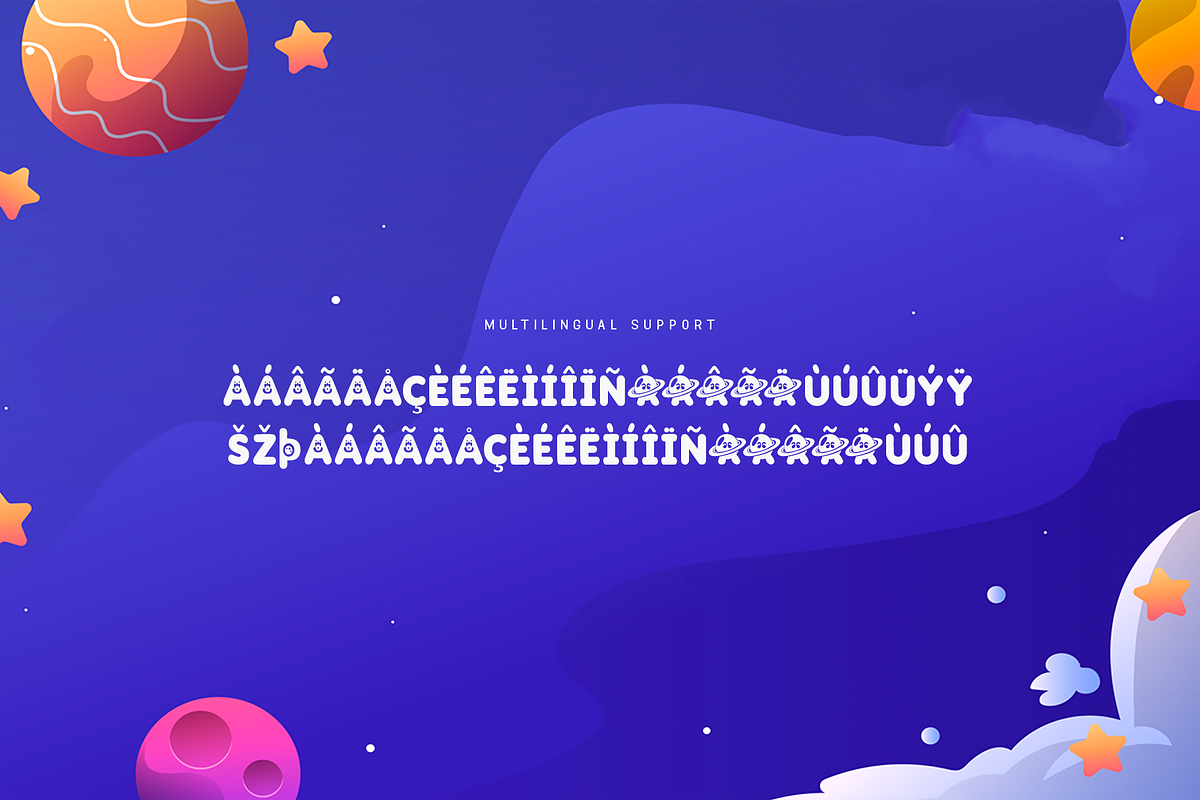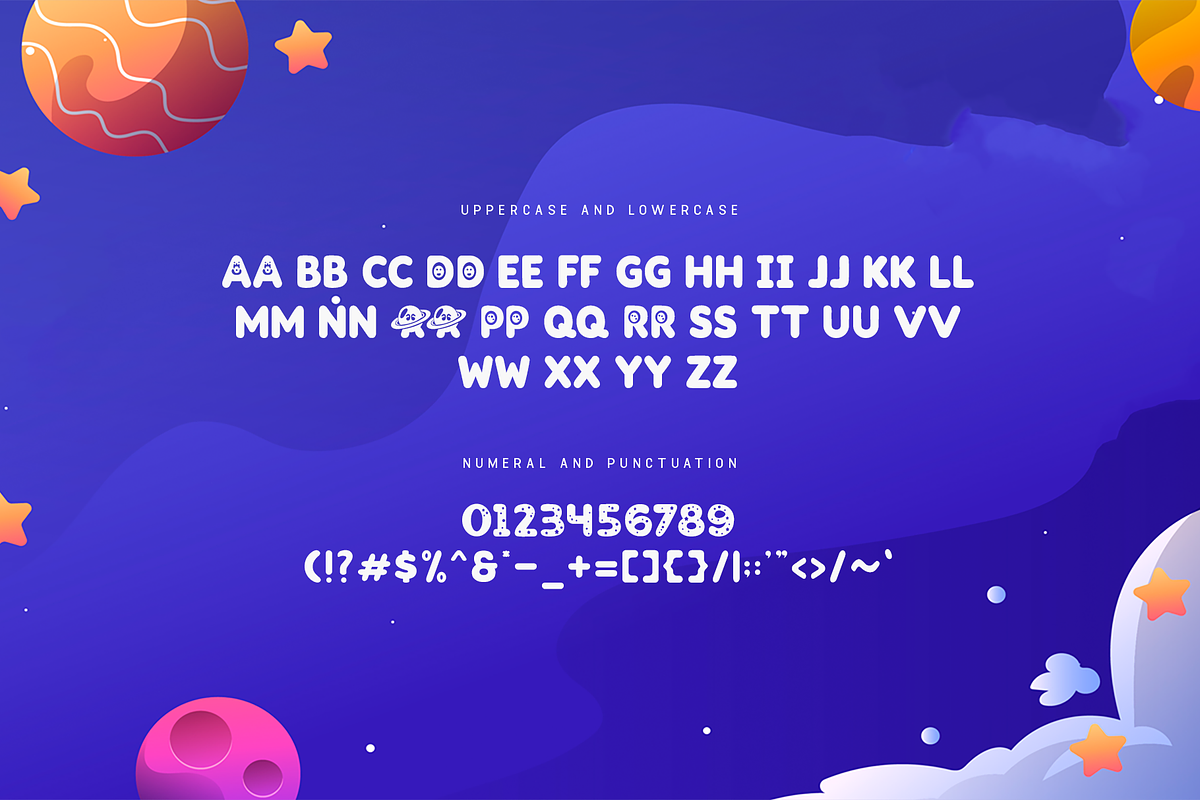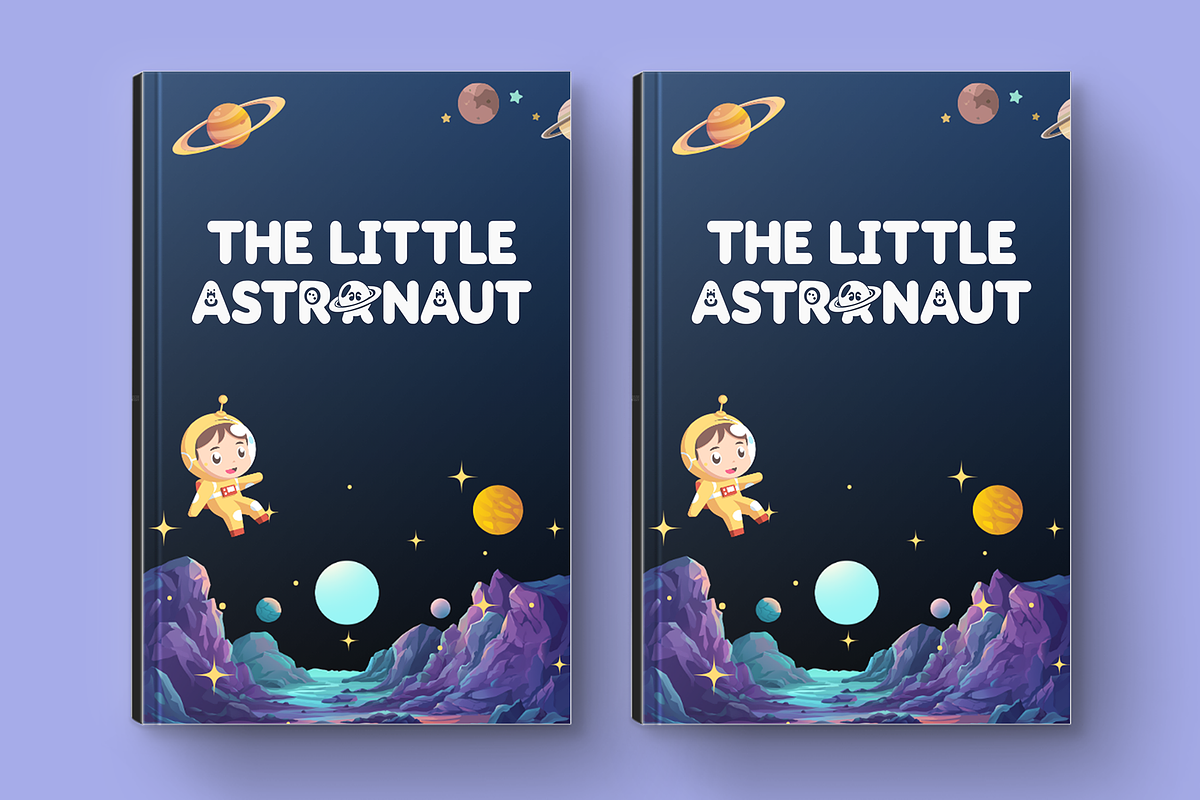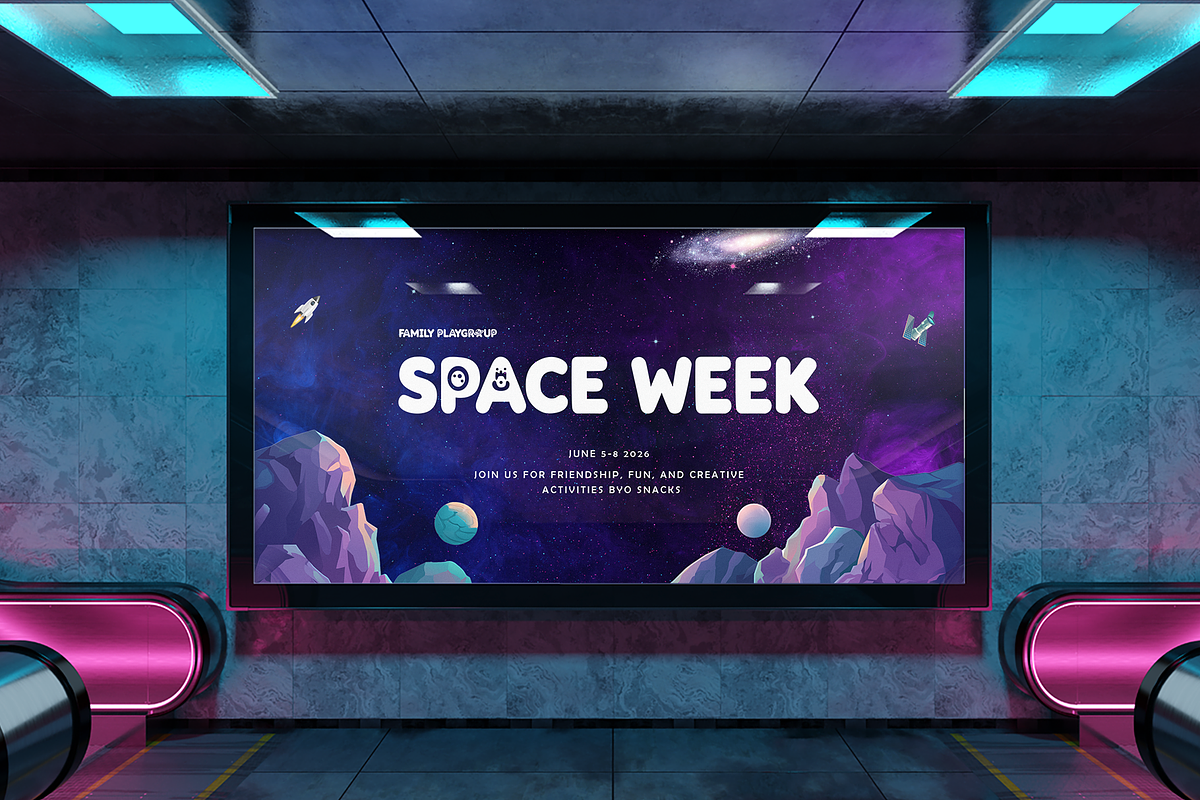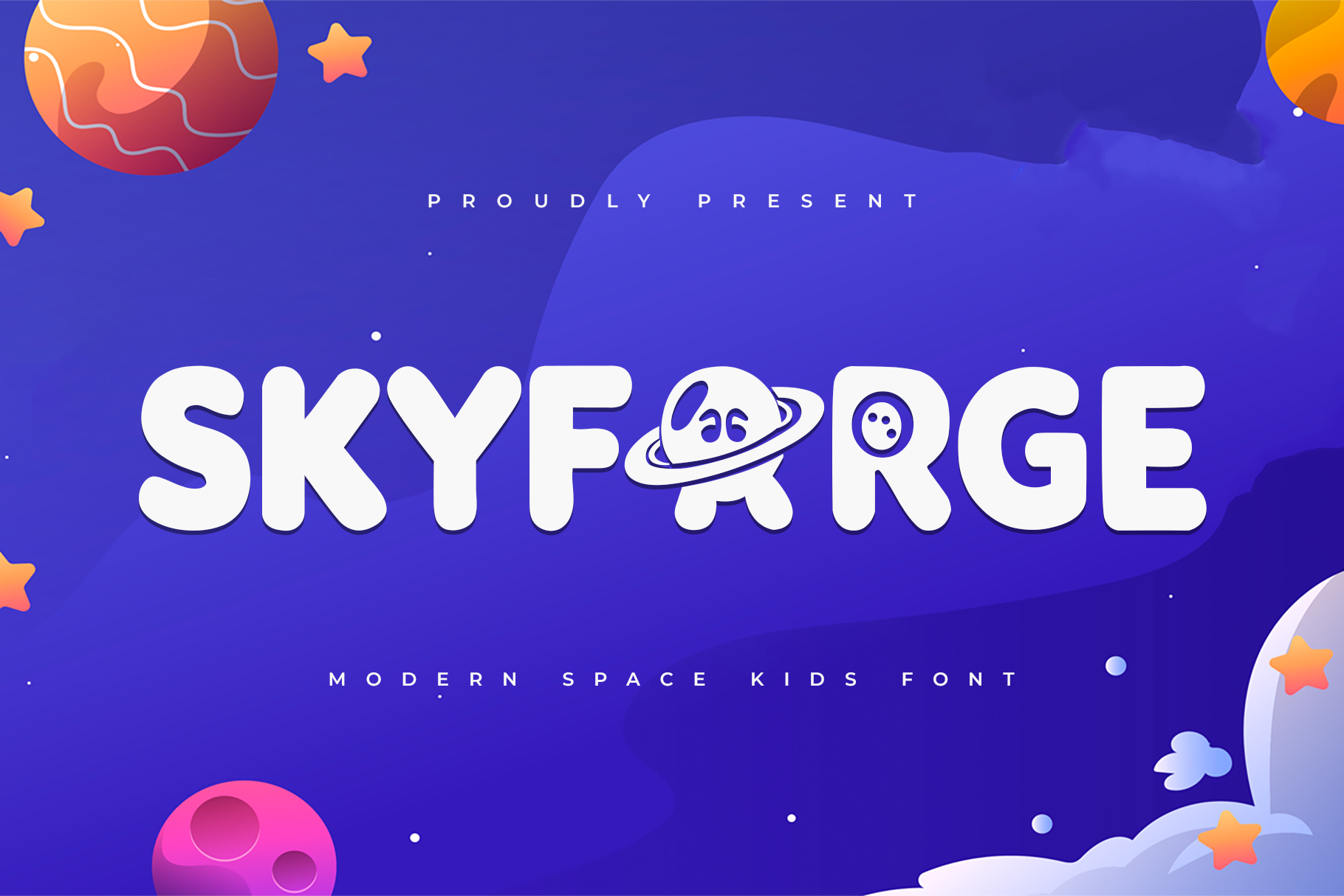
Skyforge - A Modern Space Kids Font
Unleash your imagination with Skyforge, a modern space-inspired font tailored for kids. Featuring bold, futuristic characters with a playful twist, this font is perfect for children’s books, space-themed branding, educational materials, and creative projects.
Packed with stylistic alternates and multilingual support, Skyforge makes every design an exciting interstellar adventure. Whether you're creating a space camp logo or a fun science poster, this font ensures your projects are nothing short of stellar.